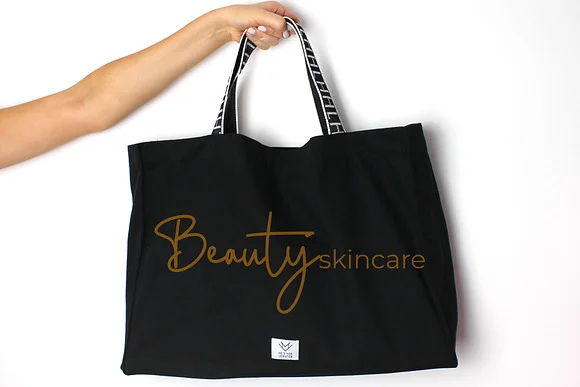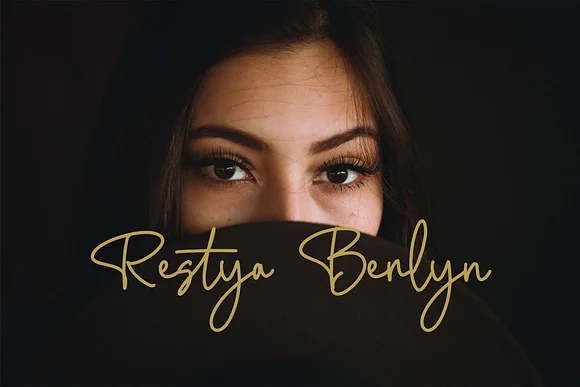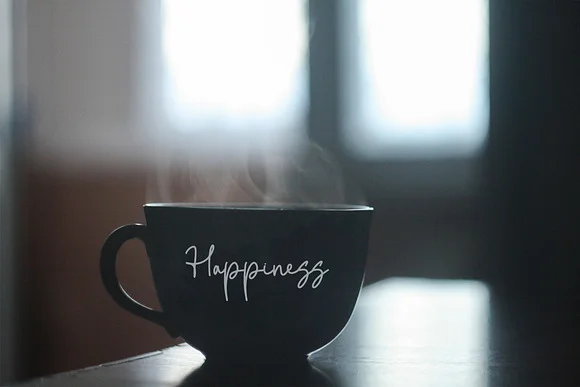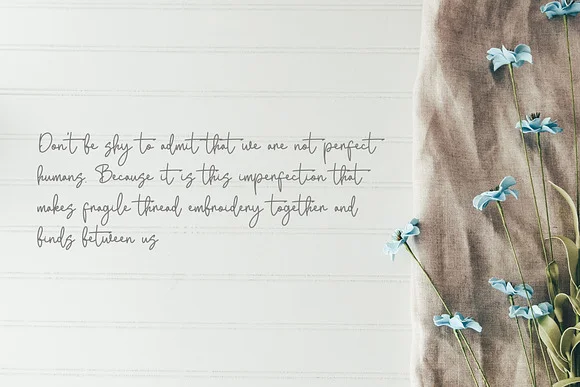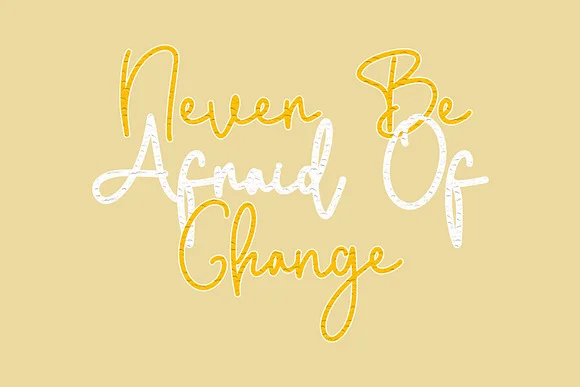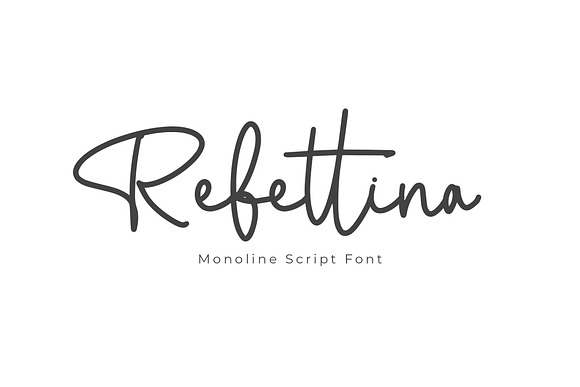
Rebettina Monoline Script Font
Few typefaces manage to balance distinctive character without sacrificing readability with genuine day-to-day practicality. Rebettina Monoline Script is one of them. The typeface brings an elegant, calligraphic sensibility to a broad range of creative disciplines, with versatility across print and screen contexts that holds up whether the work is print-first or screen-first.
In practice, Rebettina Monoline Script proves particularly effective for product labels, greeting cards, event signage, annual reports, brand identity systems. Designers reaching for it find that the type decisions feel resolved rather than laboured — a useful quality when client timelines are tight.
The range of applications extends to logo design, wedding invitations, web design, beauty packaging. That breadth is deliberate: the proportions and spacing were stress-tested across a wide range of mock briefs before the typeface was finalised.
At smaller sizes the design retains its character without becoming cluttered. This resilience across scales makes Rebettina Monoline Script equally suitable for a business card and a billboard — a useful property when assets must scale across a campaign.
Motion designers building title sequences and lower thirds find Rebettina Monoline Script a reliable choice for projects that demand both personality and restraint. The design avoids the self-conscious quirkiness that dates quickly, settling instead for considered distinctiveness that holds up over time.